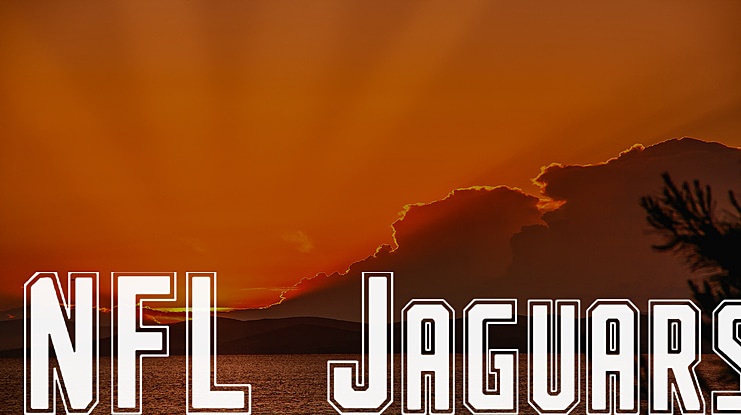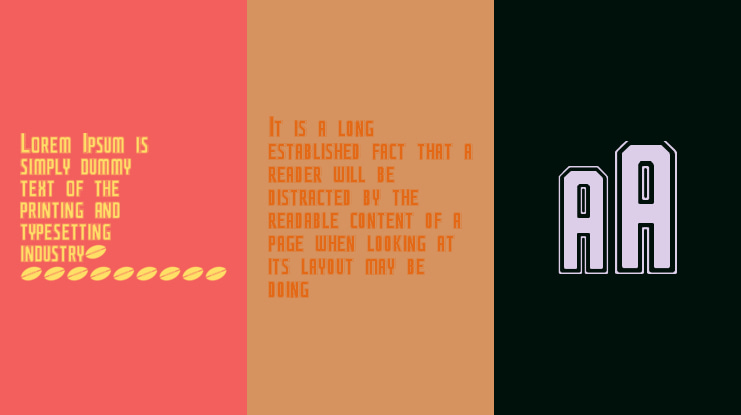
NFL Jaguars Font
Created from an CAD image from a forum post request by Nick just for fun always wanted to create an outline font based on the college effect @ http://www.footballidiot.com/forum